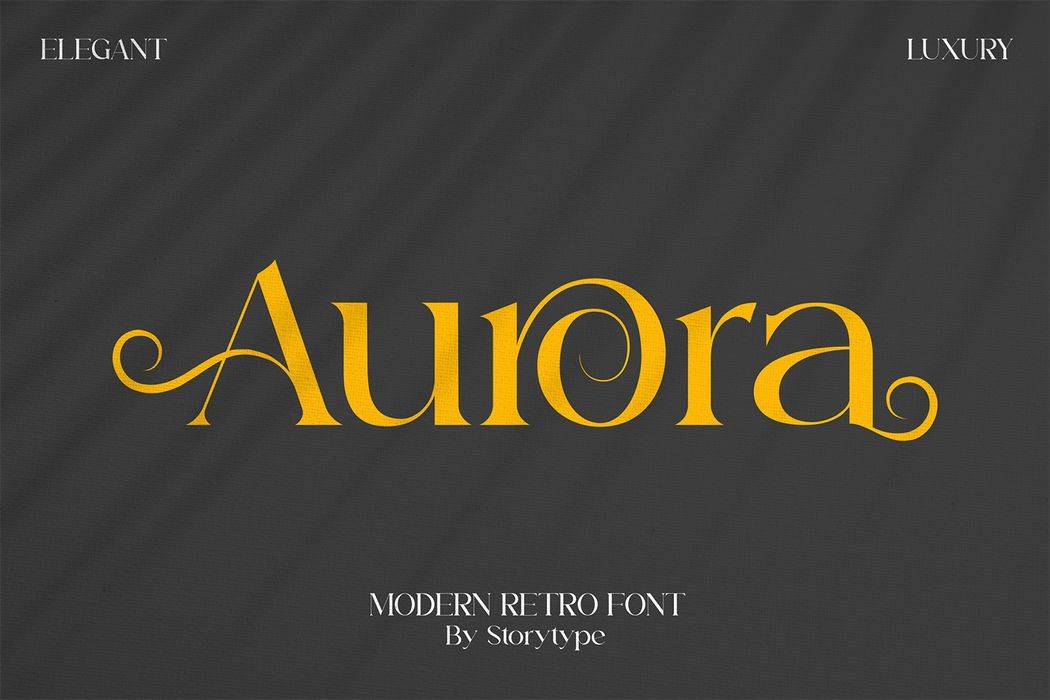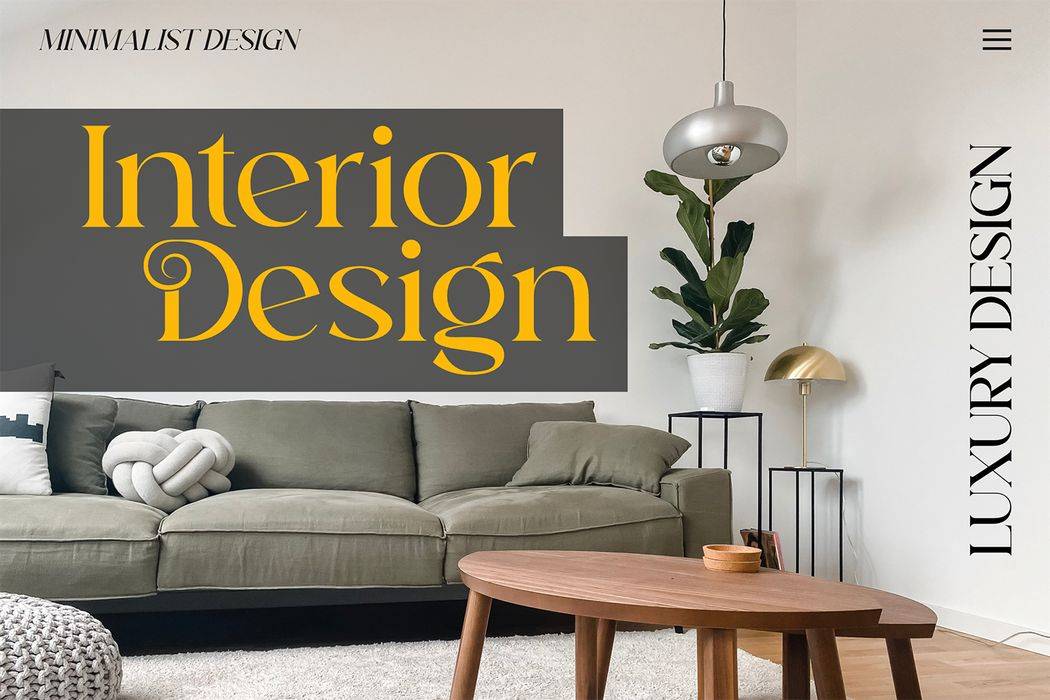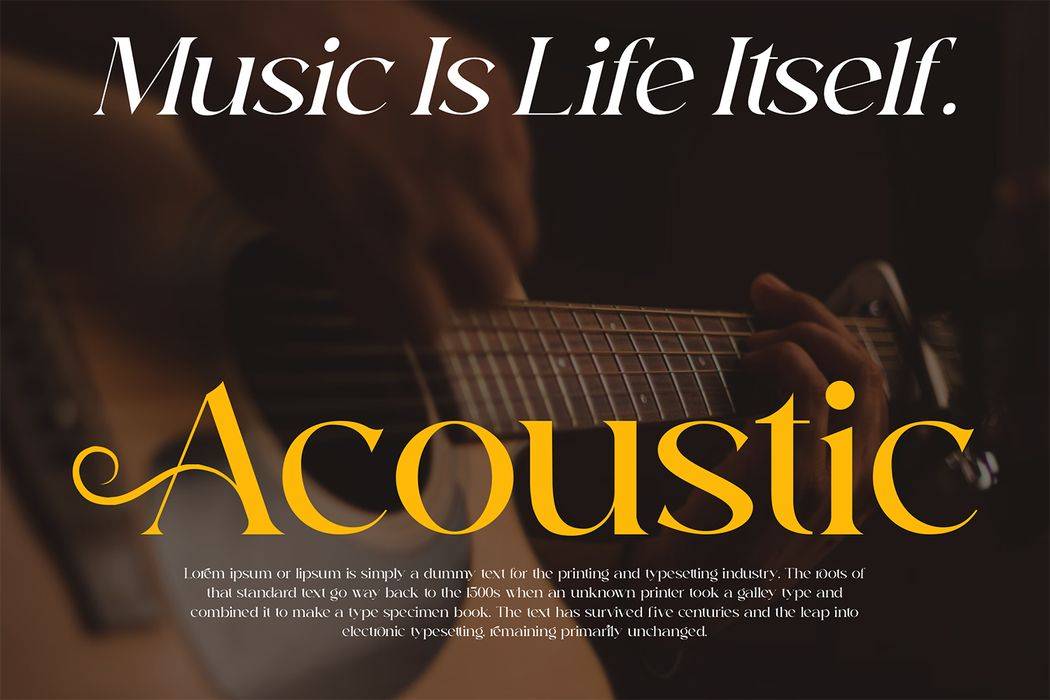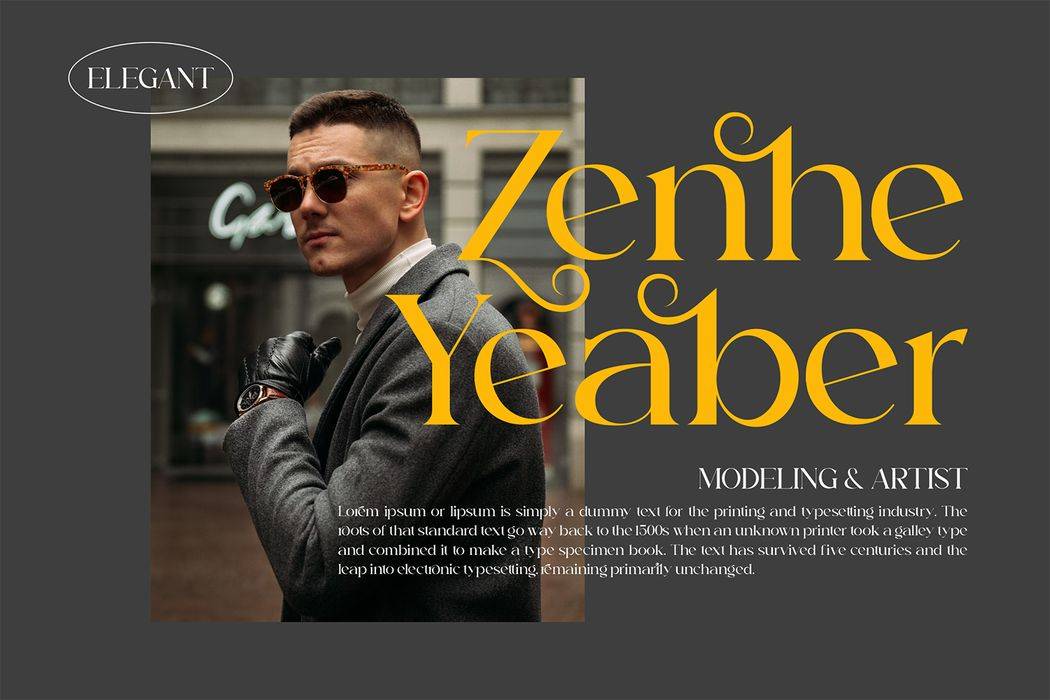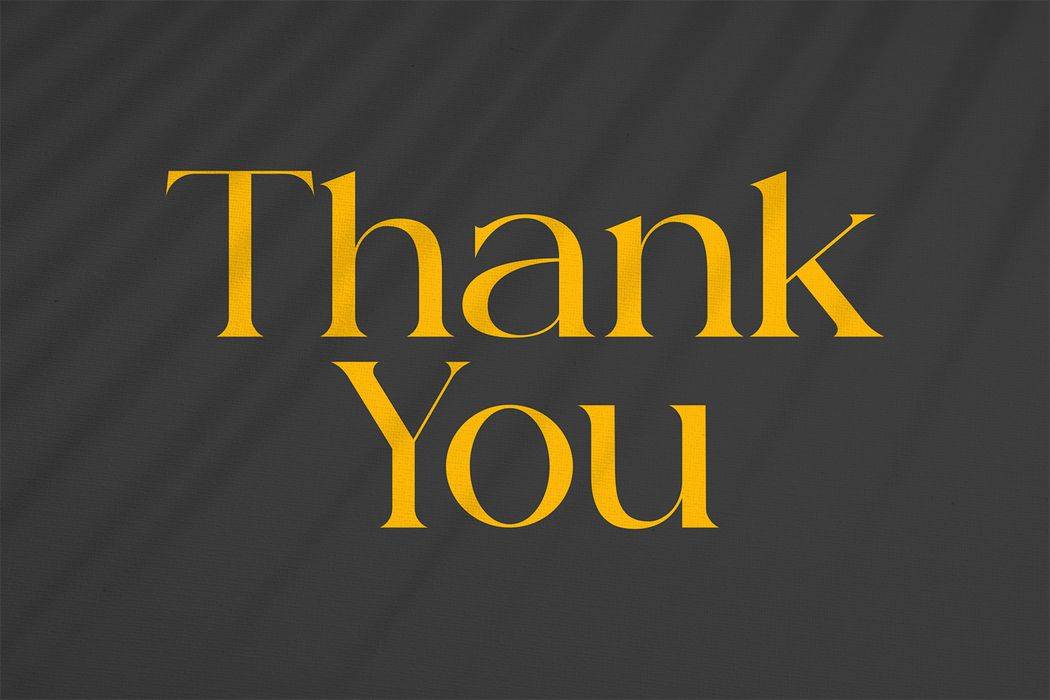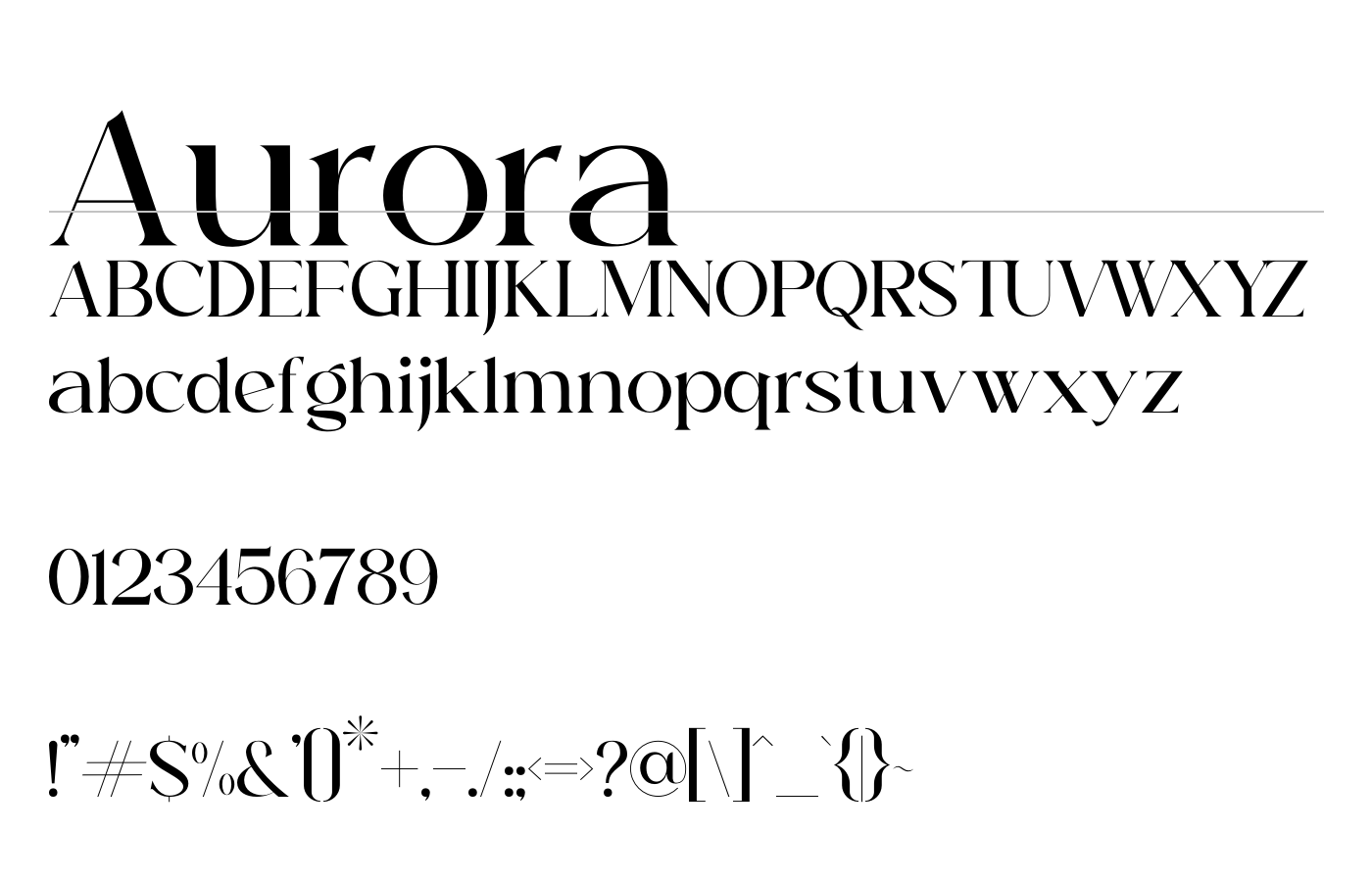
Aurora is an elegant serif font with a modern Didone style, characterized by high contrast between thick and thin strokes and delicate, sharp serifs. Its refined letterforms and tall x-height create a sophisticated yet readable aesthetic, making it ideal for luxury branding, editorial headlines, and fashion-related design projects. This font's graceful appearance lends a timeless and upscale feel to any visual identity.
Aurora Font
About Aurora Font